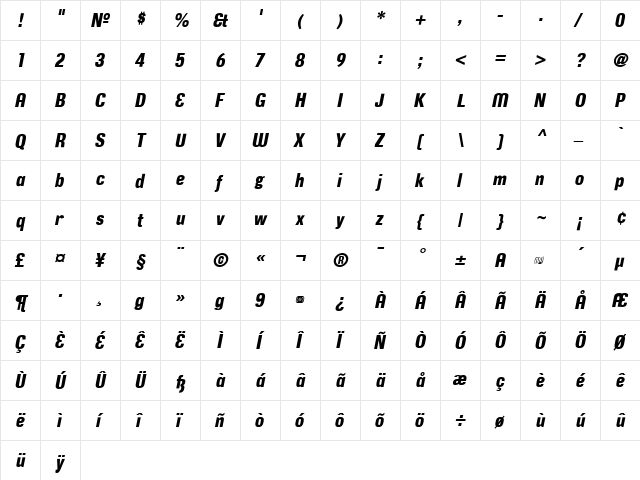
CorpusGothicAlternative Italic
Design Context for CorpusGothicAlternative Typeface
CorpusGothicAlternative has the quiet confidence of well-executed sans-serif typography: versatile, unobtrusive, and dependable at any size. The slanted form adds forward momentum and visual energy.
Font Pairing: Works well alongside a characterful serif or display font that can carry the expressive load while CorpusGothicAlternative handles the functional copy.
Pro Tip: Use CorpusGothicAlternative for UI labels, navigation, and short-form body copy where clean legibility is the priority.